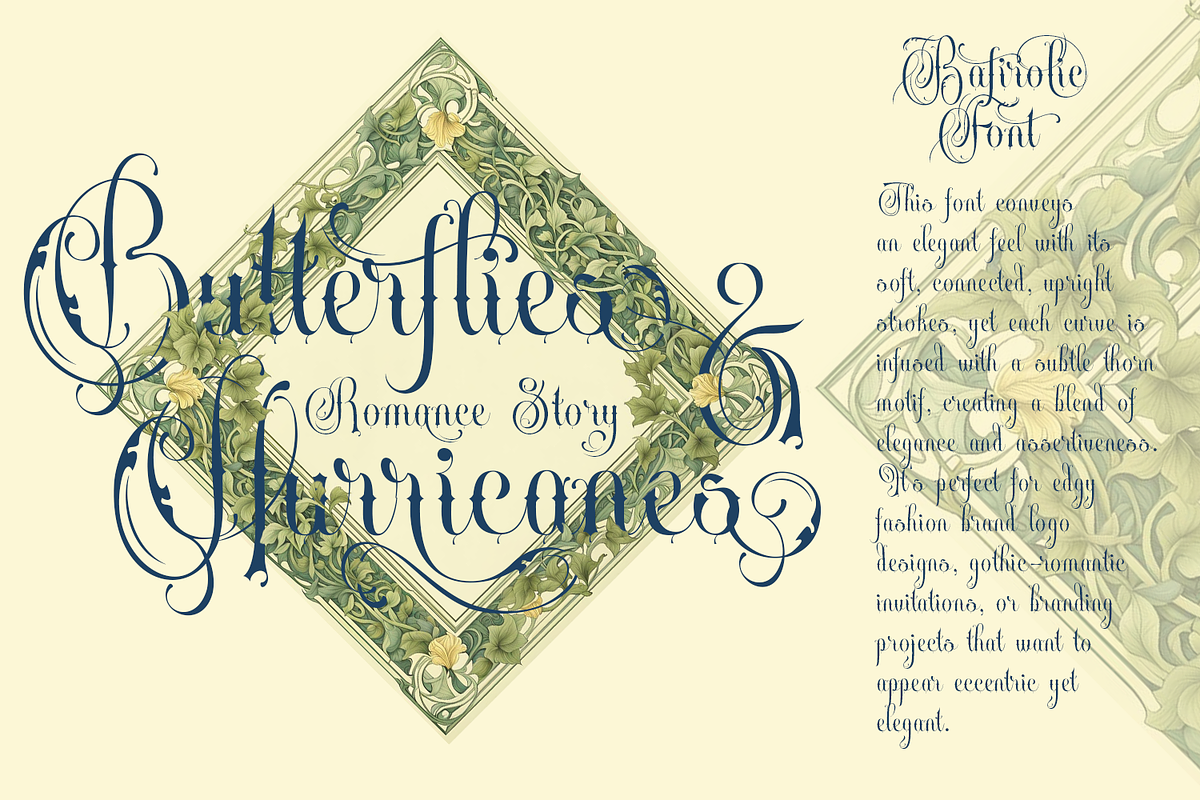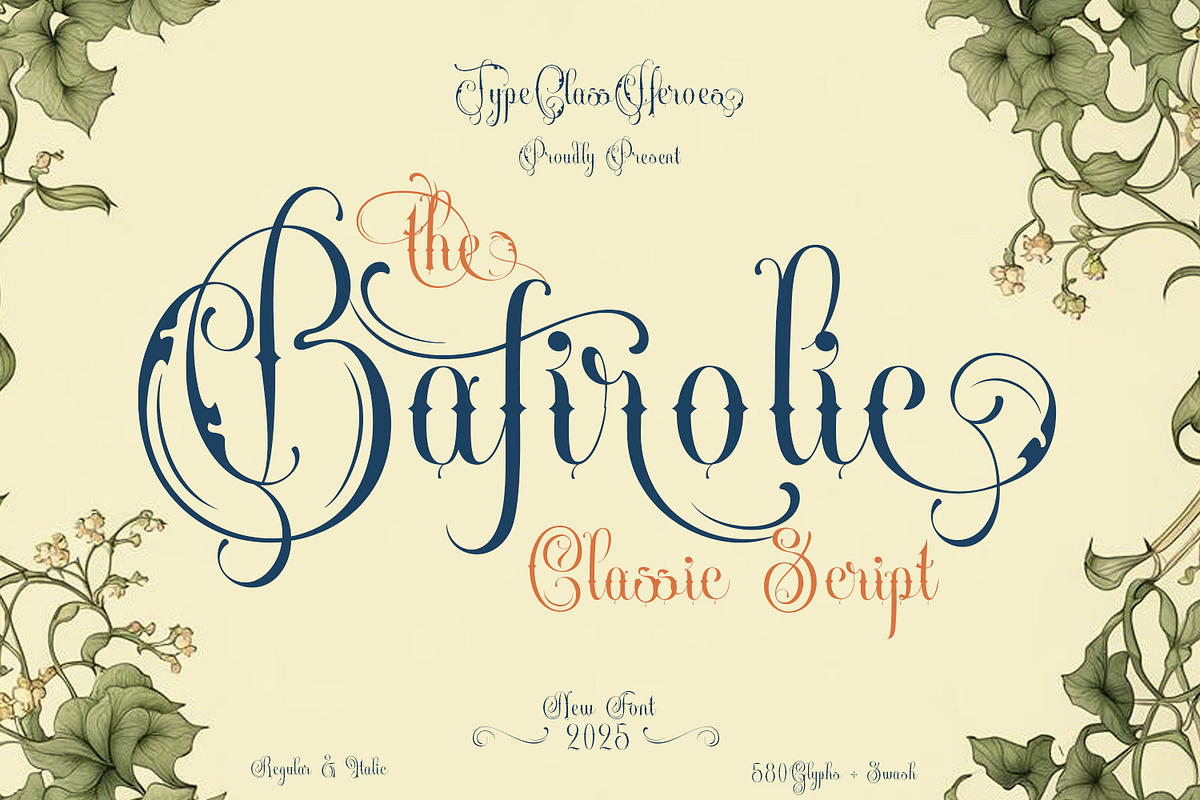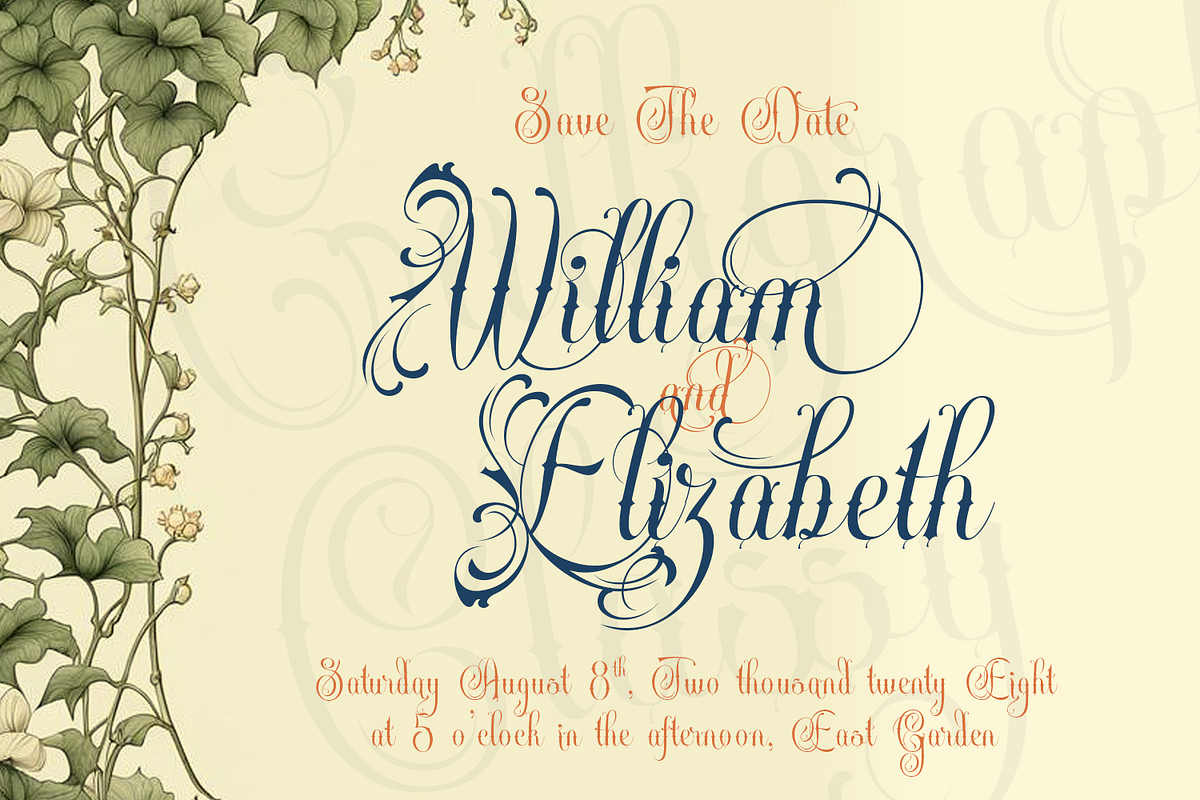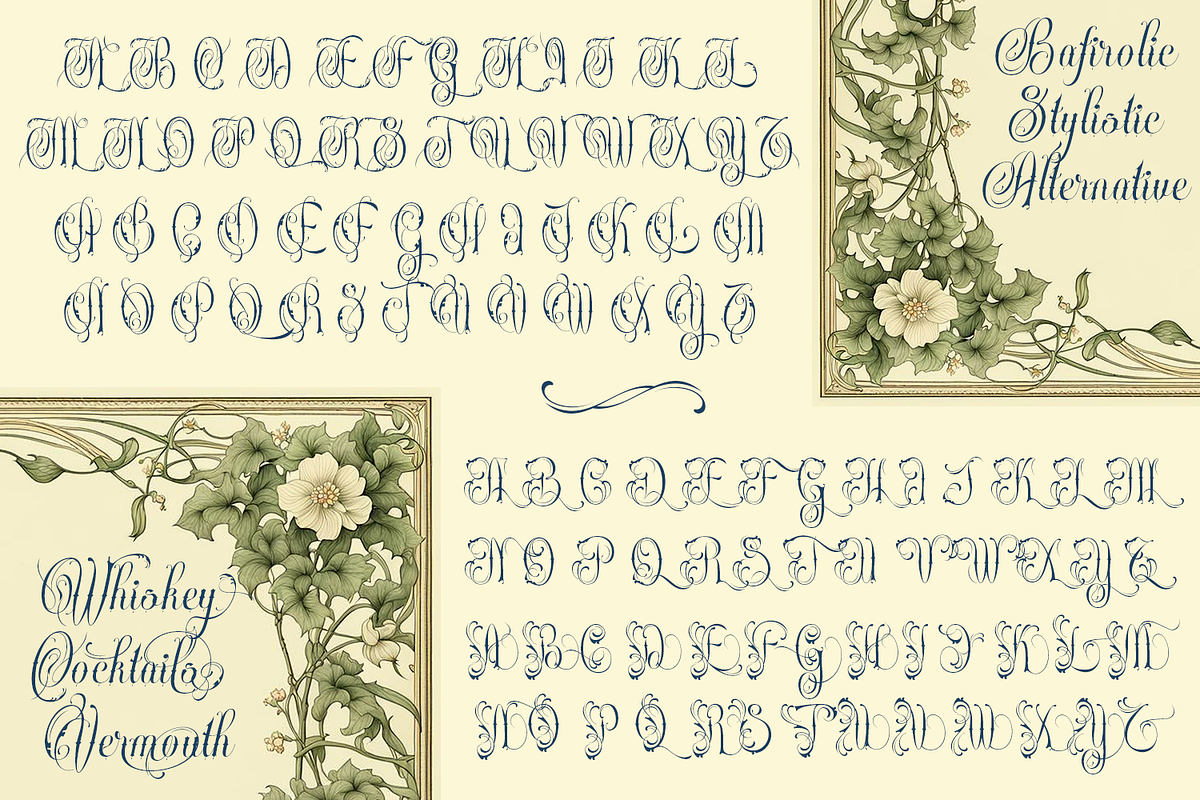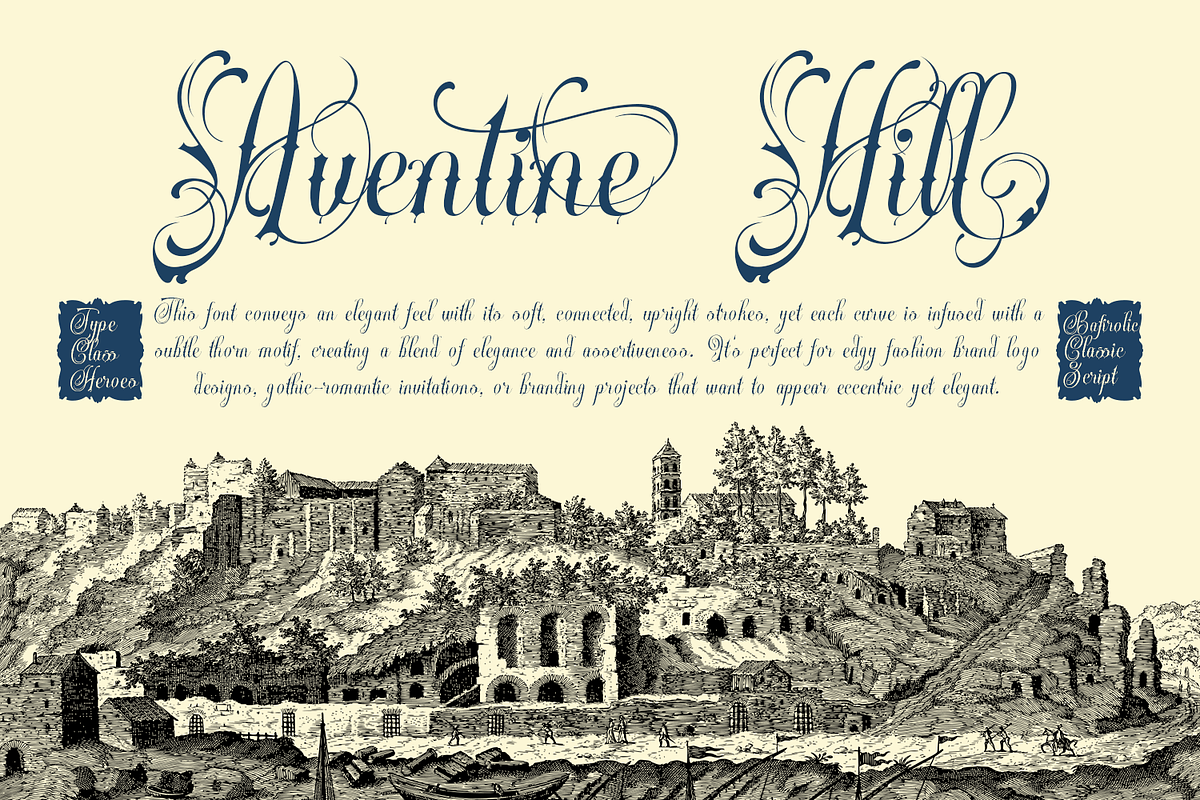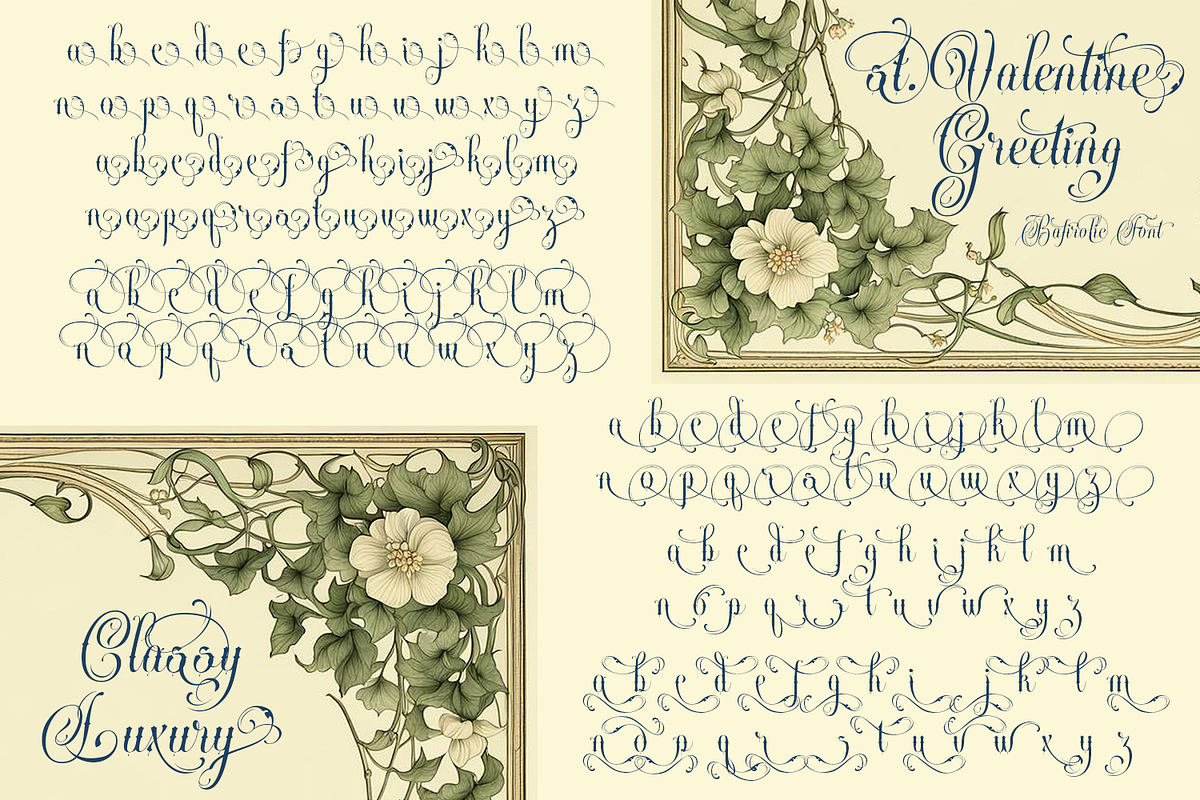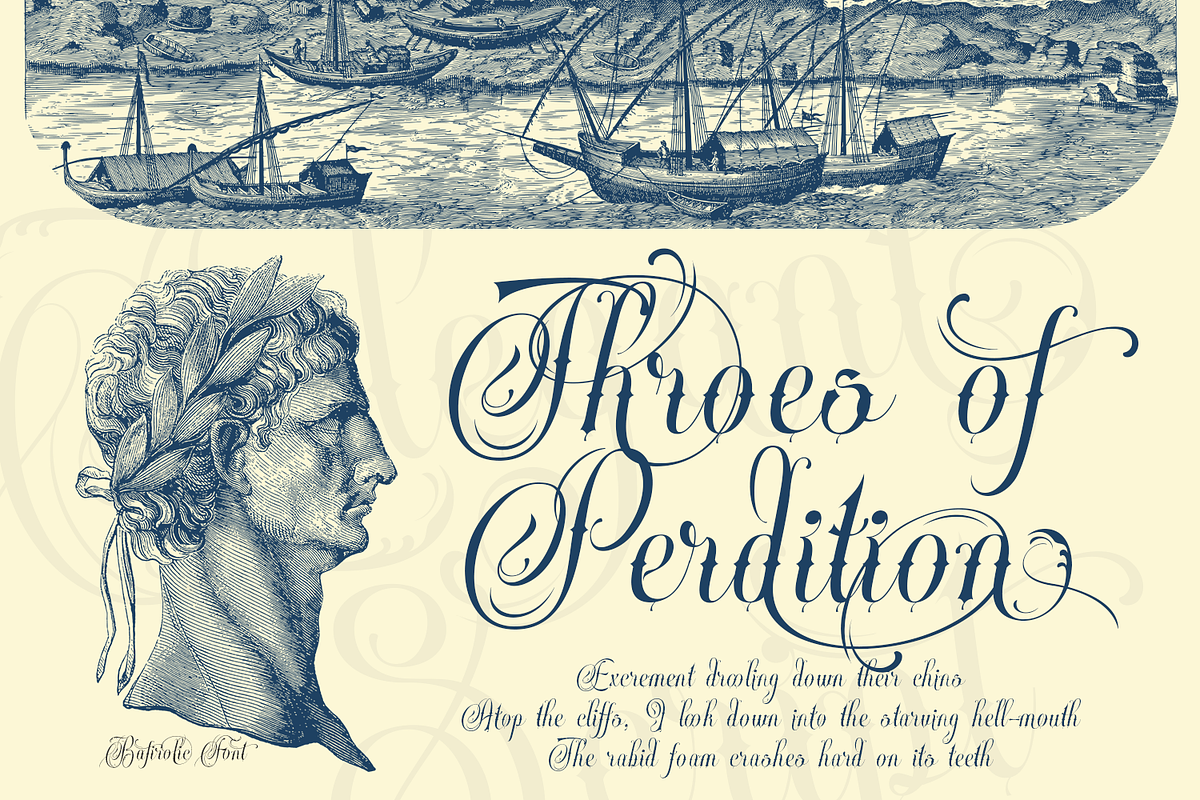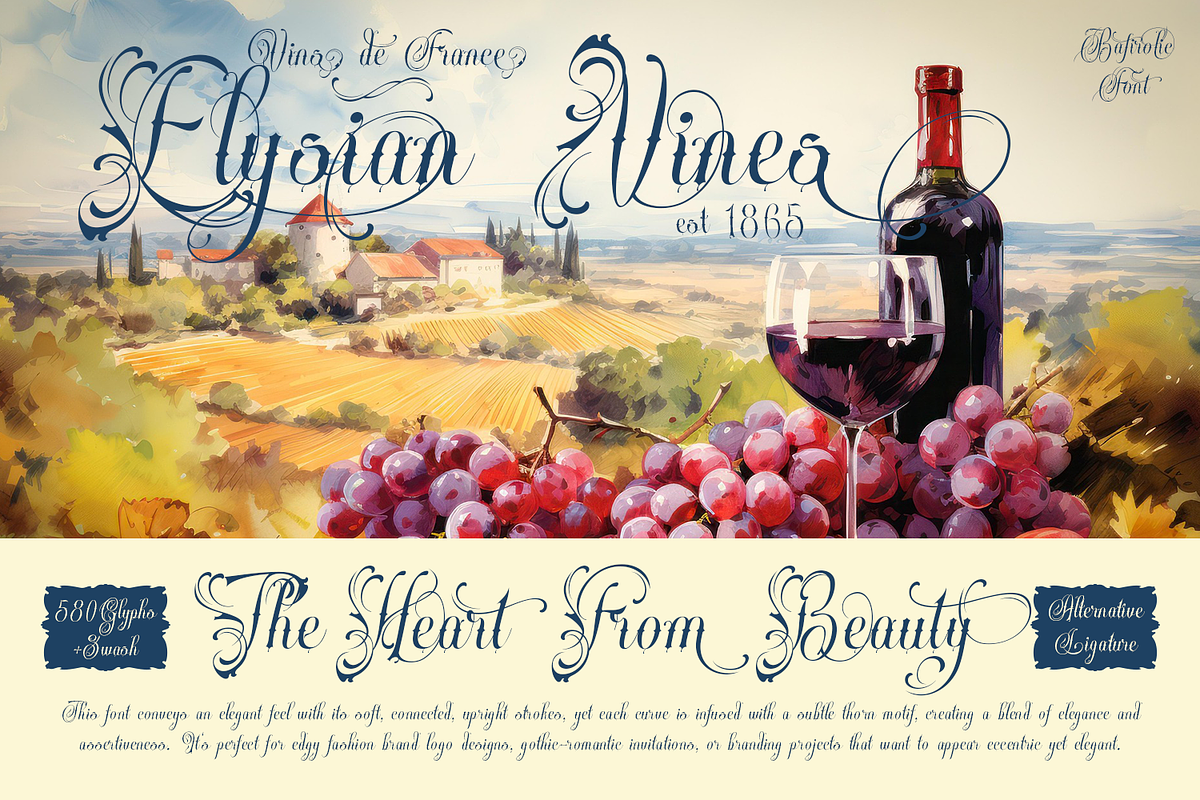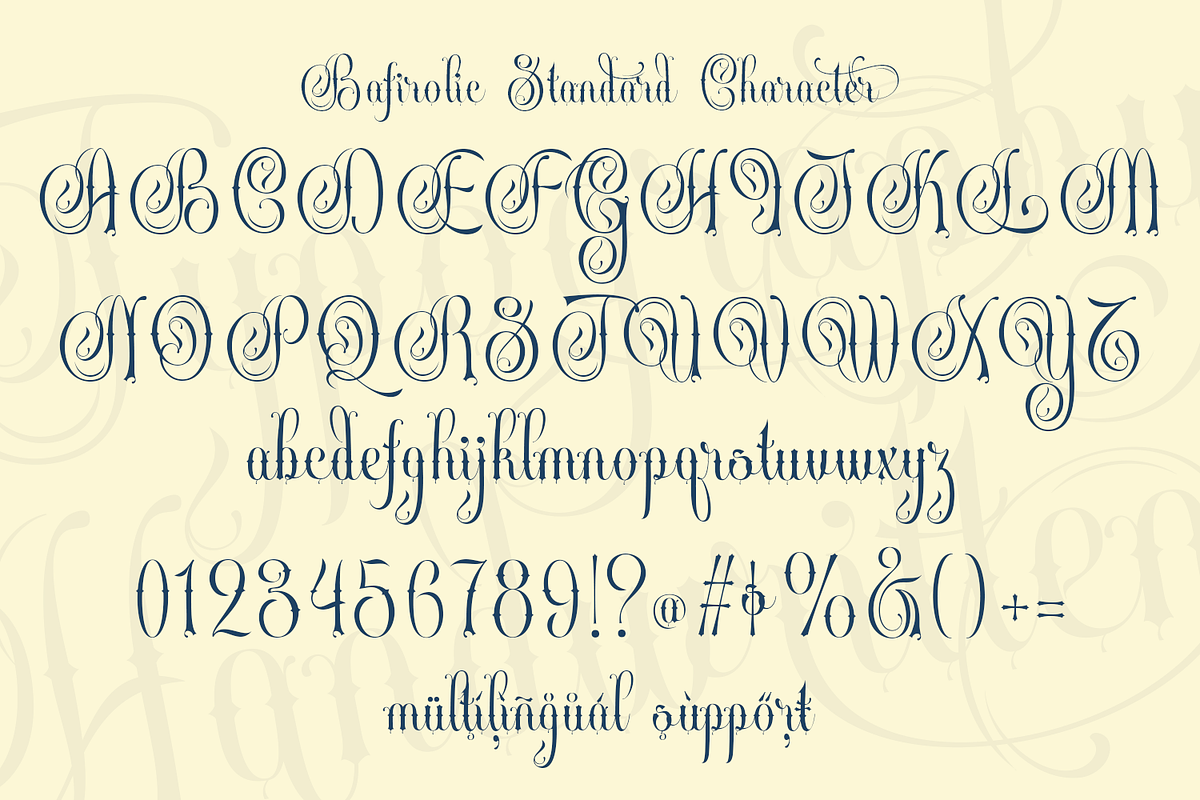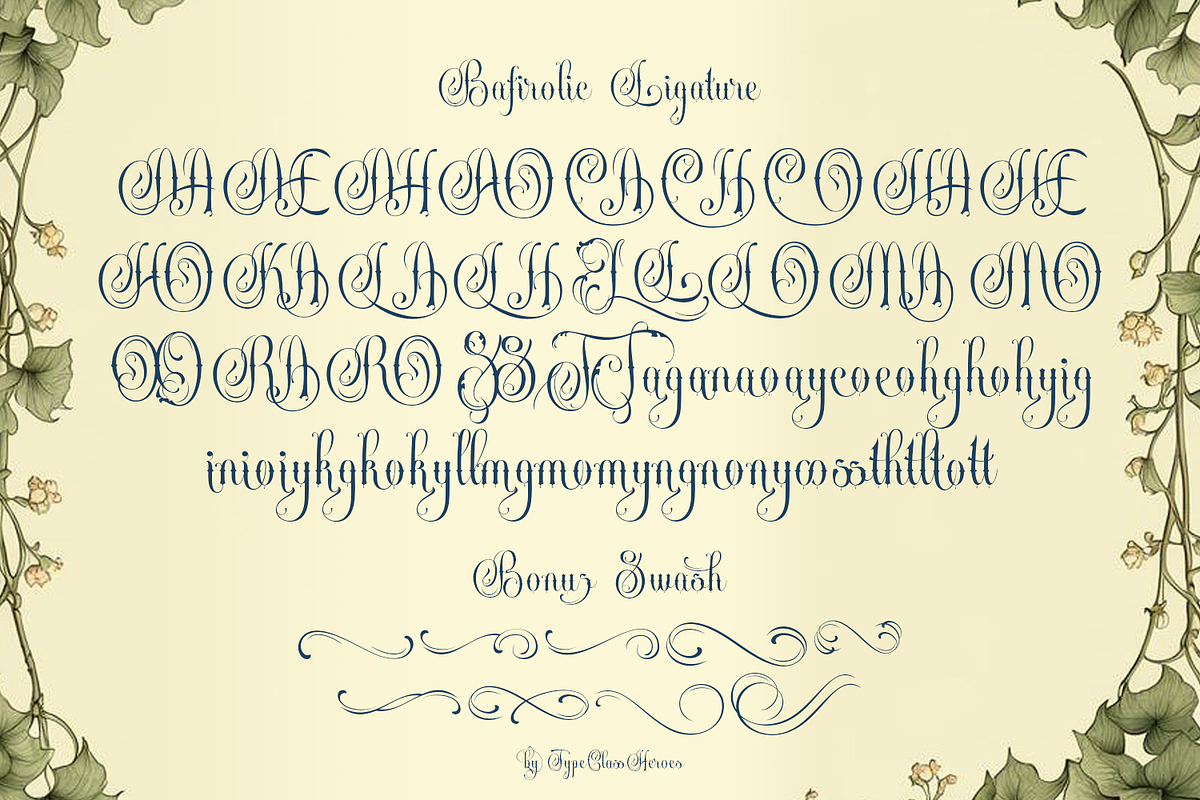
Bafirolic Classic Script
Introducing Bafirolic Classic Script, This font conveys an elegant feel with its soft, connected, upright strokes, yet each curve is infused with a subtle thorn motif, creating a blend of elegance and assertiveness. It's perfect for brand logo designs, gothic-romantic invitations, or branding projects that want to appear eccentric yet elegant.